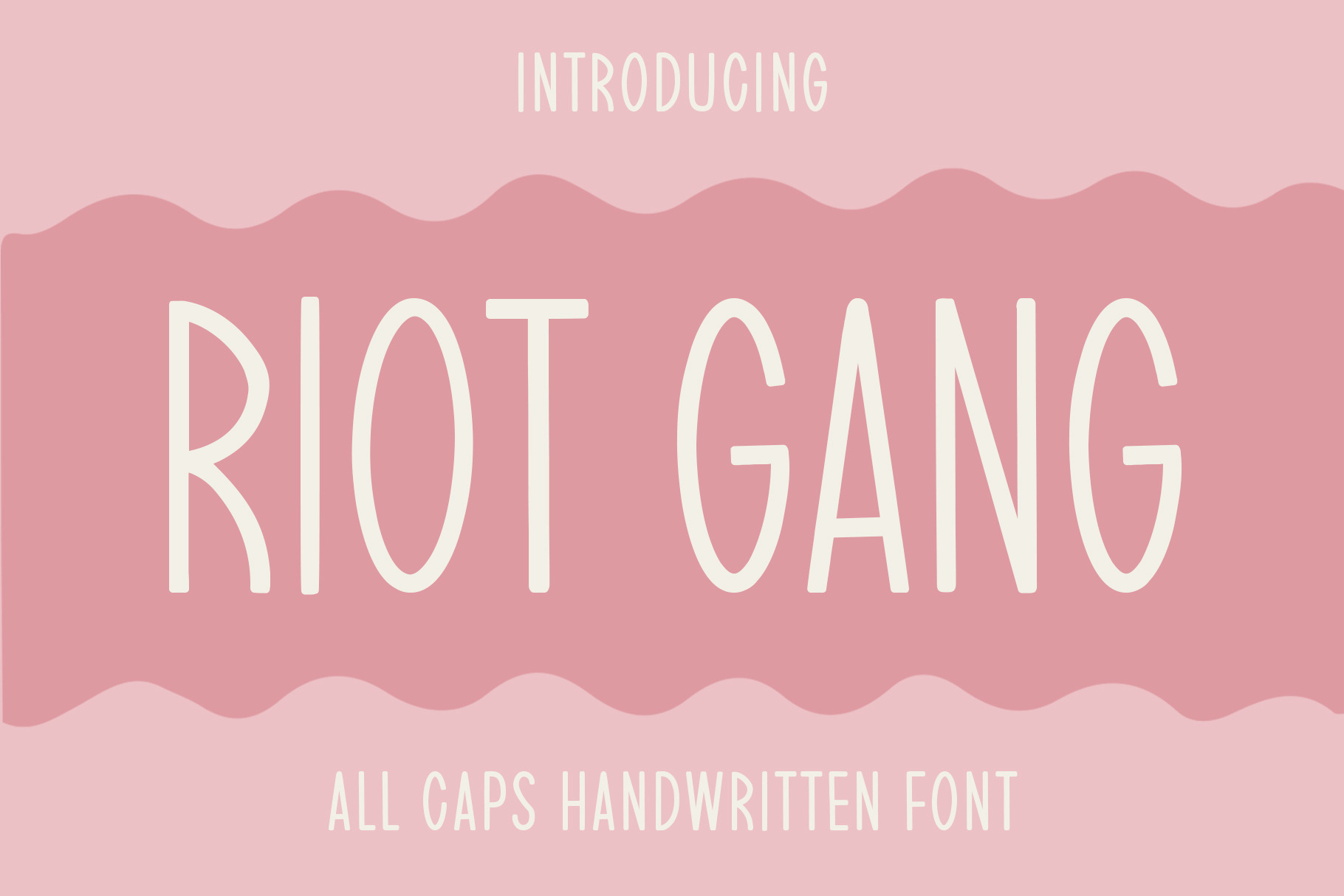
Riot Gang - Handwriting Font
Riot Gang is a captivating handwriting font that injects rebellious energy and dynamic flair into any design project. This typeface available in SVG format, compatible with advanced tools such as Cricut and Glowforge, and for use in Procreate. Whether used for posters, logos, or social media graphics, this font product is a rebellious statement that breaks free from the conventional, inviting users to embrace the spirited chaos of creative expression.